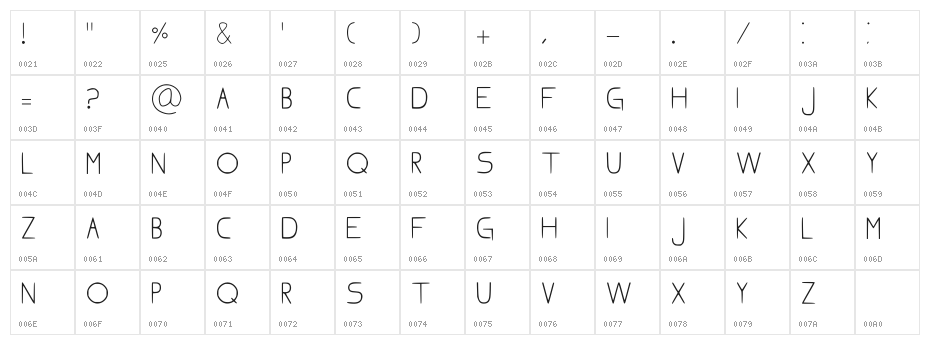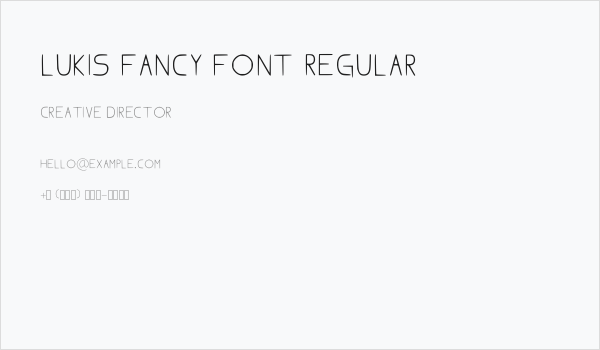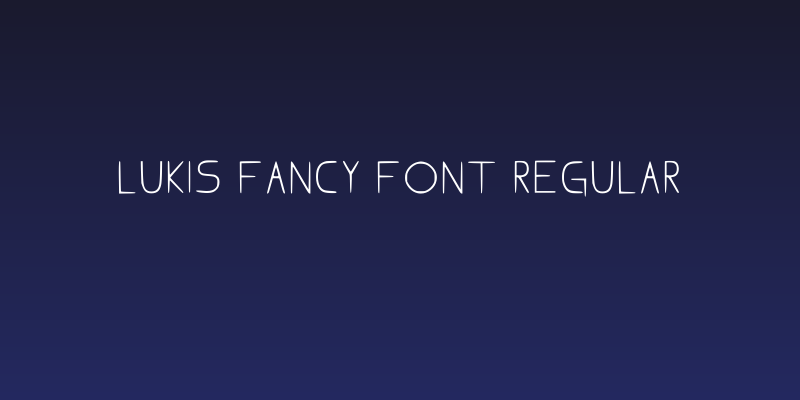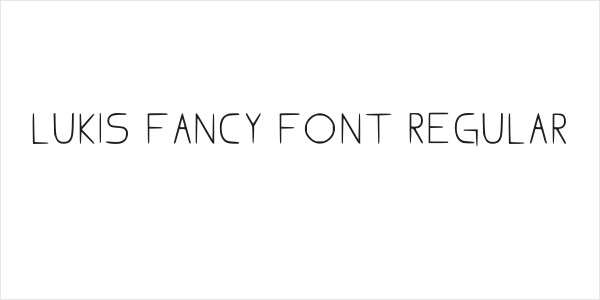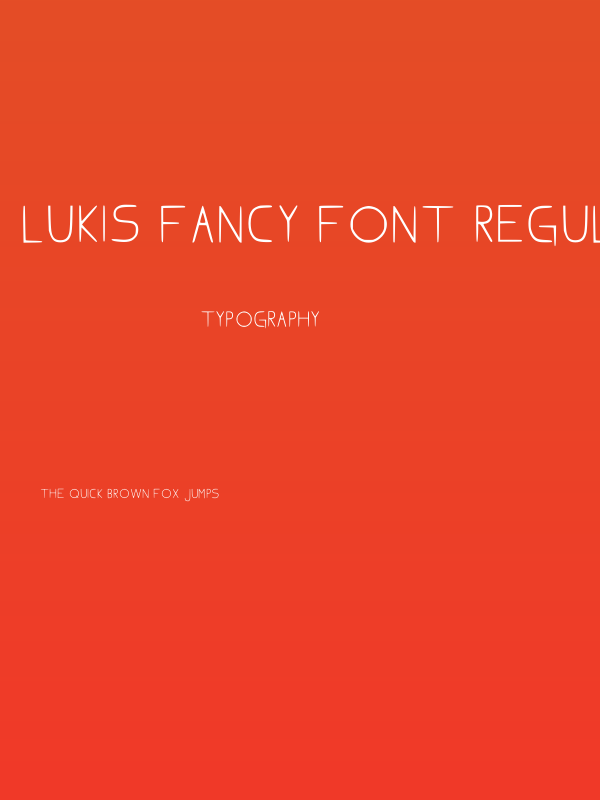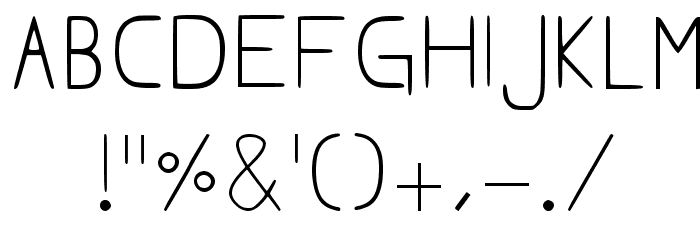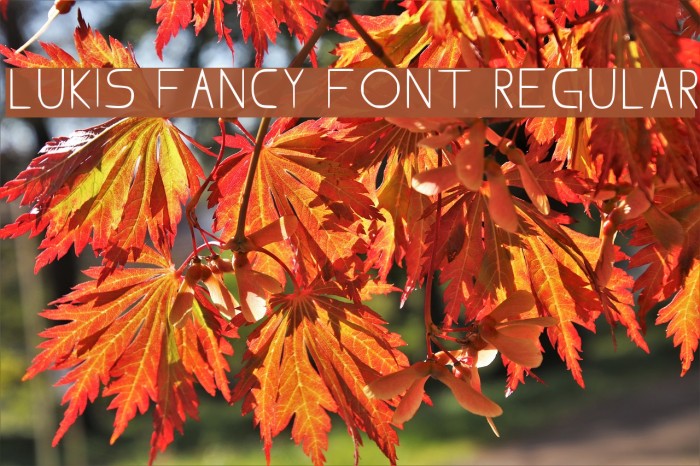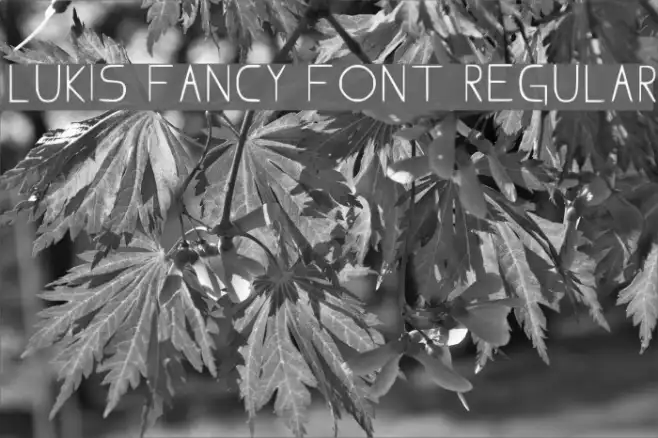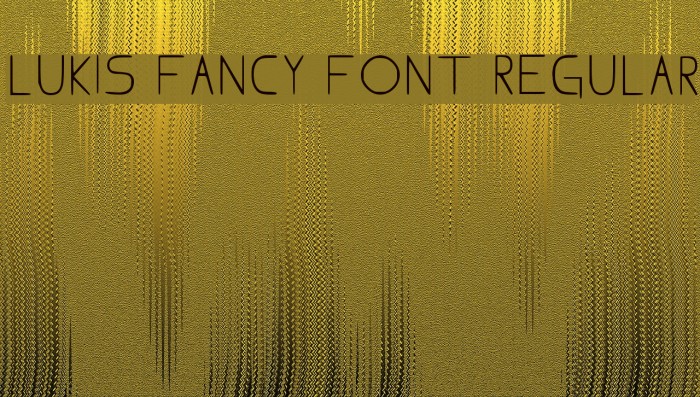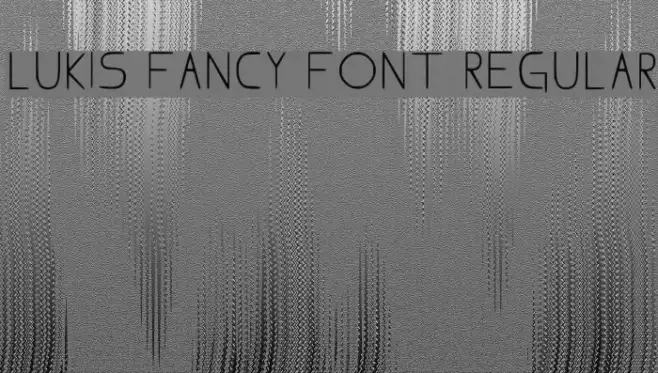
Lukis Fancy Font Regular Font
Lukis Fancy Font Regular Description
This font features a sleek and modern design with clean lines and a minimalist aesthetic. The characters are evenly spaced, providing a balanced and harmonious look. The uppercase and lowercase letters maintain a consistent style, with subtle curves and straight edges that enhance readability. The numerals and special characters are designed to complement the alphabet, ensuring a cohesive appearance across all text. This font's simplicity and elegance make it versatile for various design projects.
| Proposed Projects | Ideal for branding, editorial design, web design, and advertising materials. |